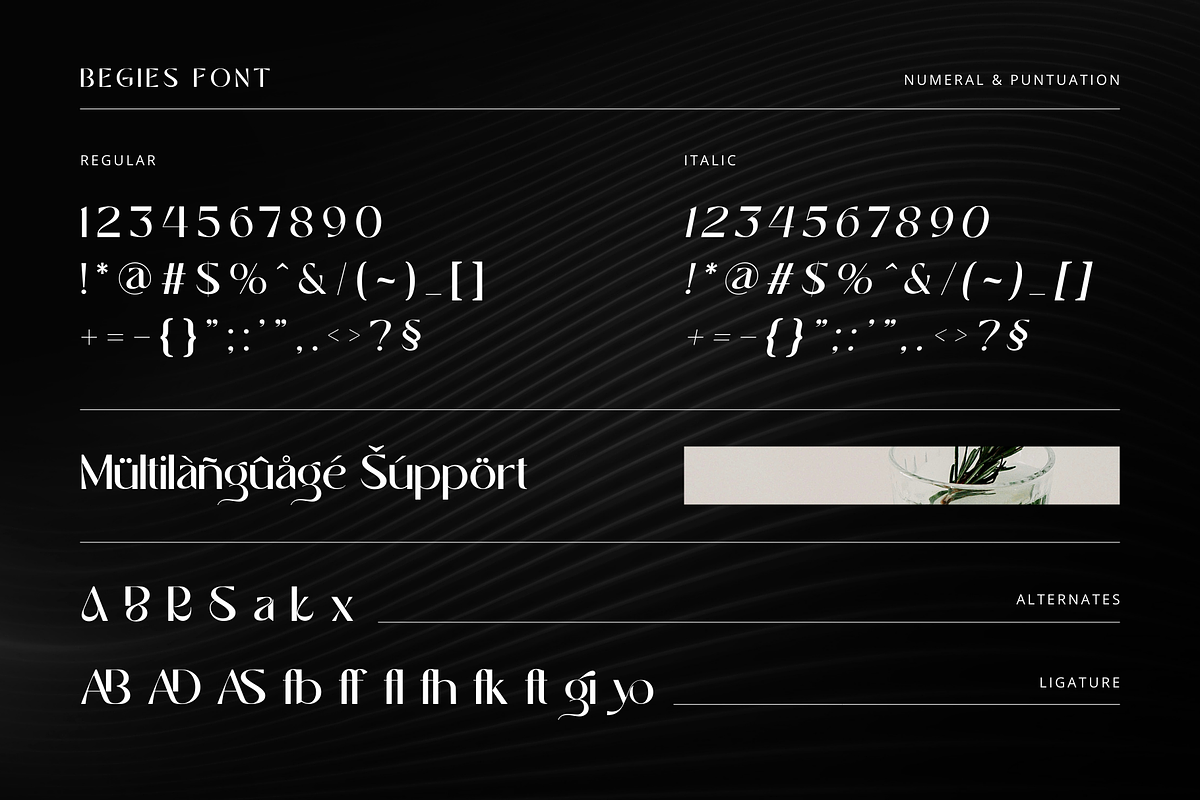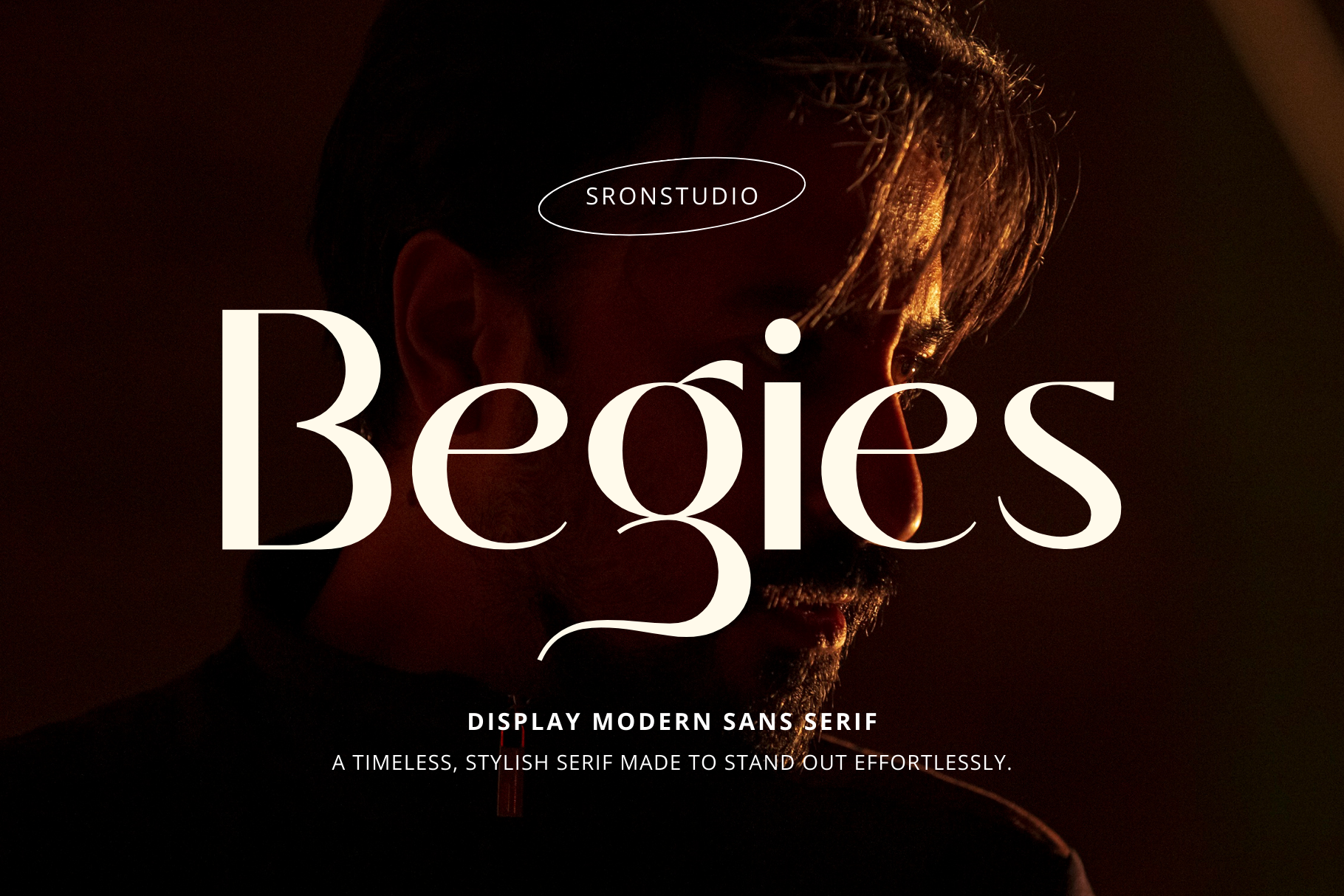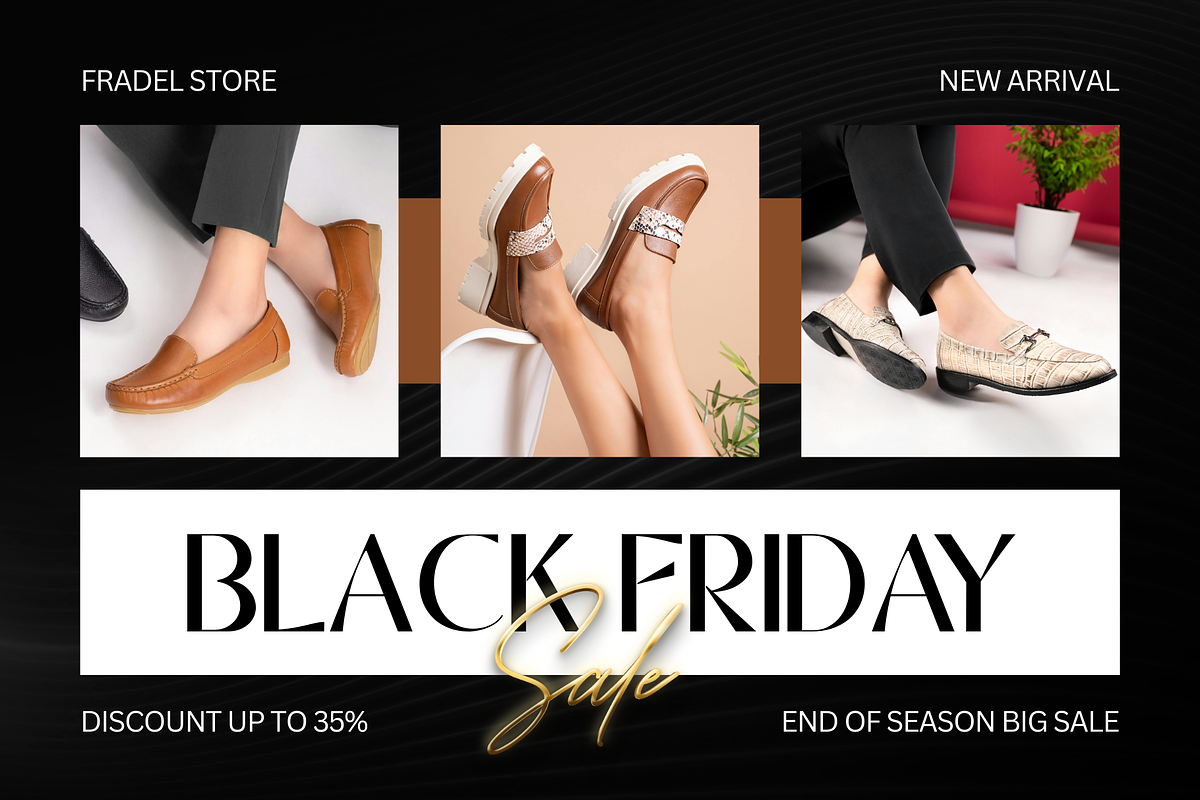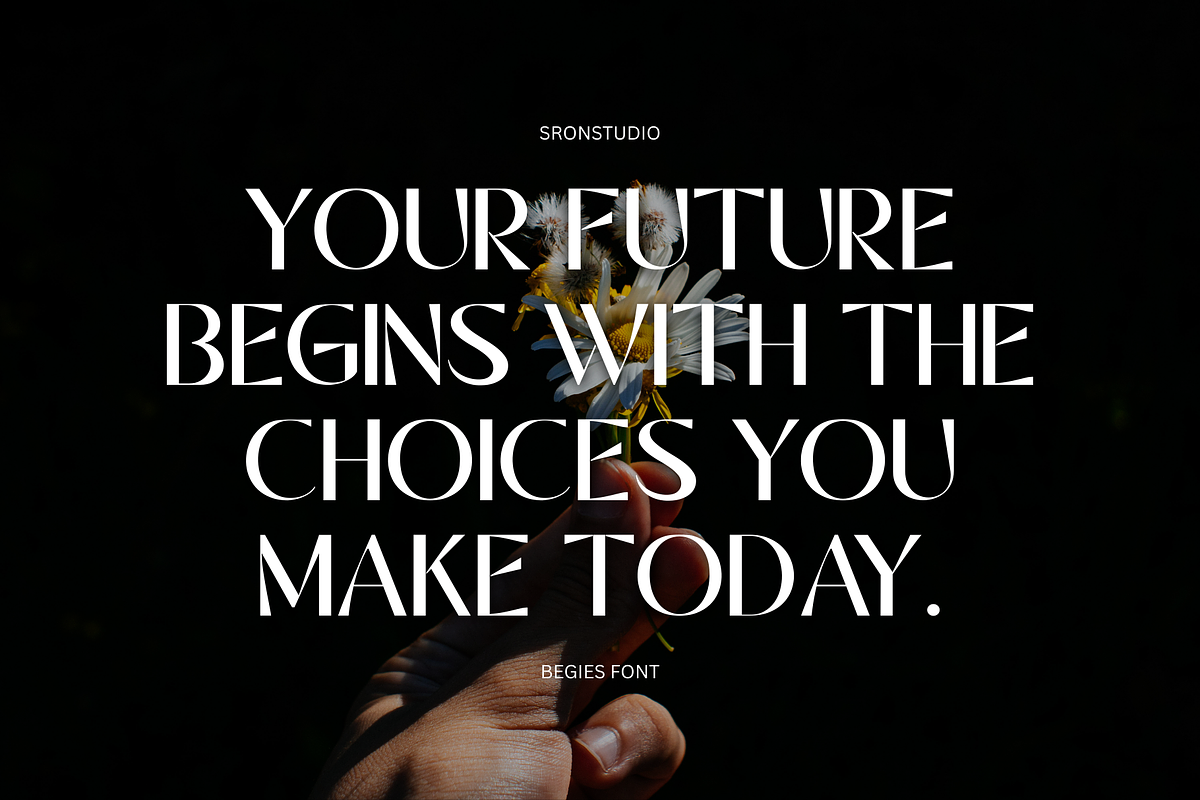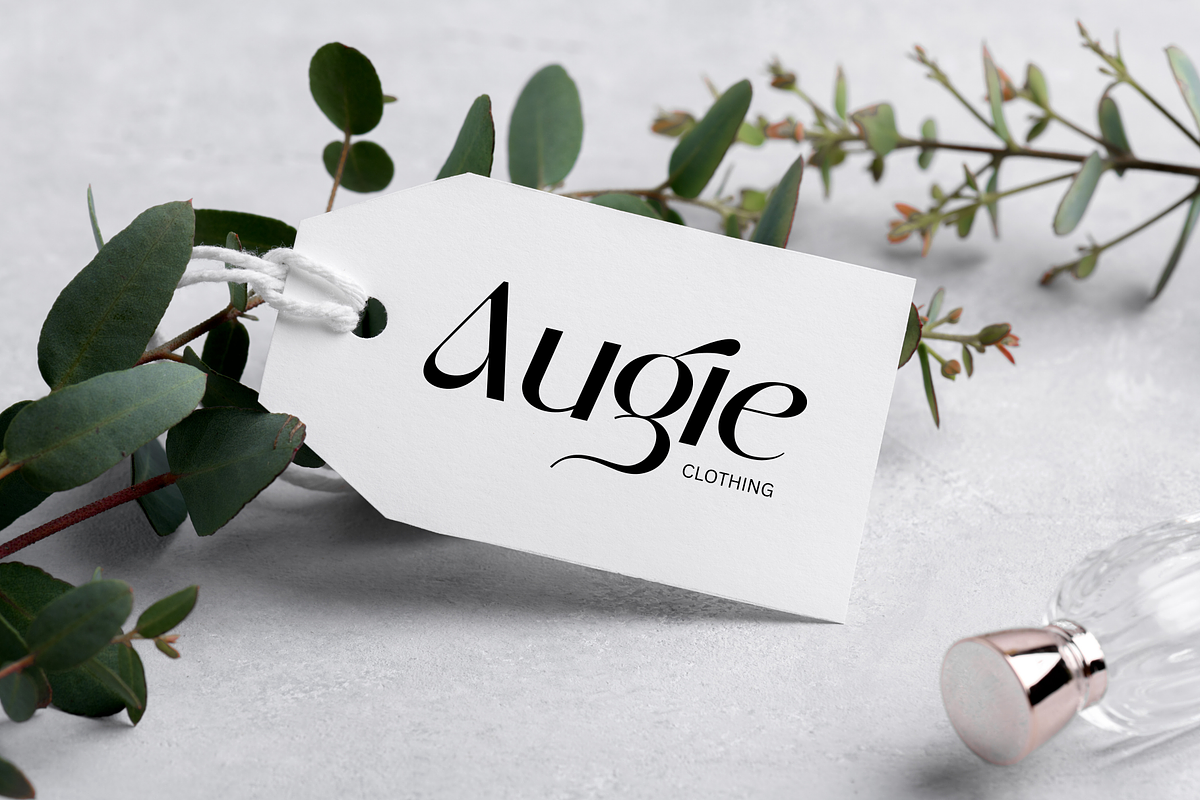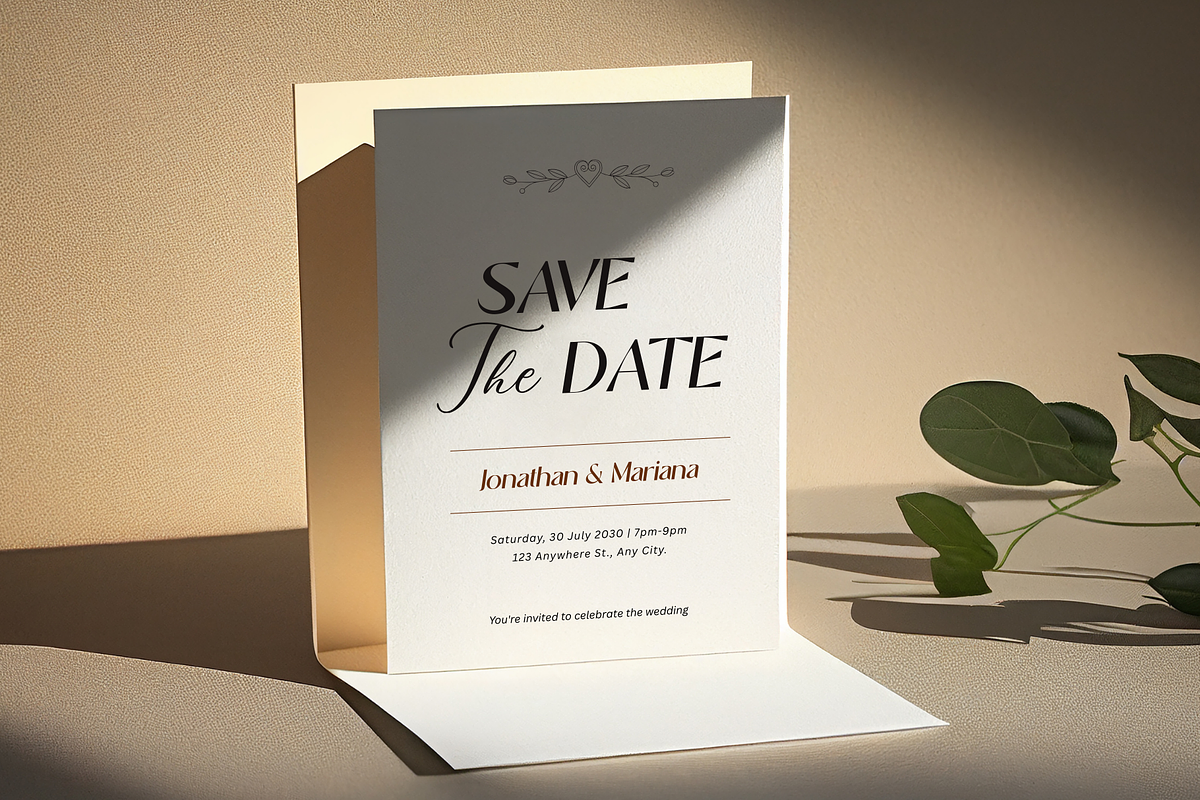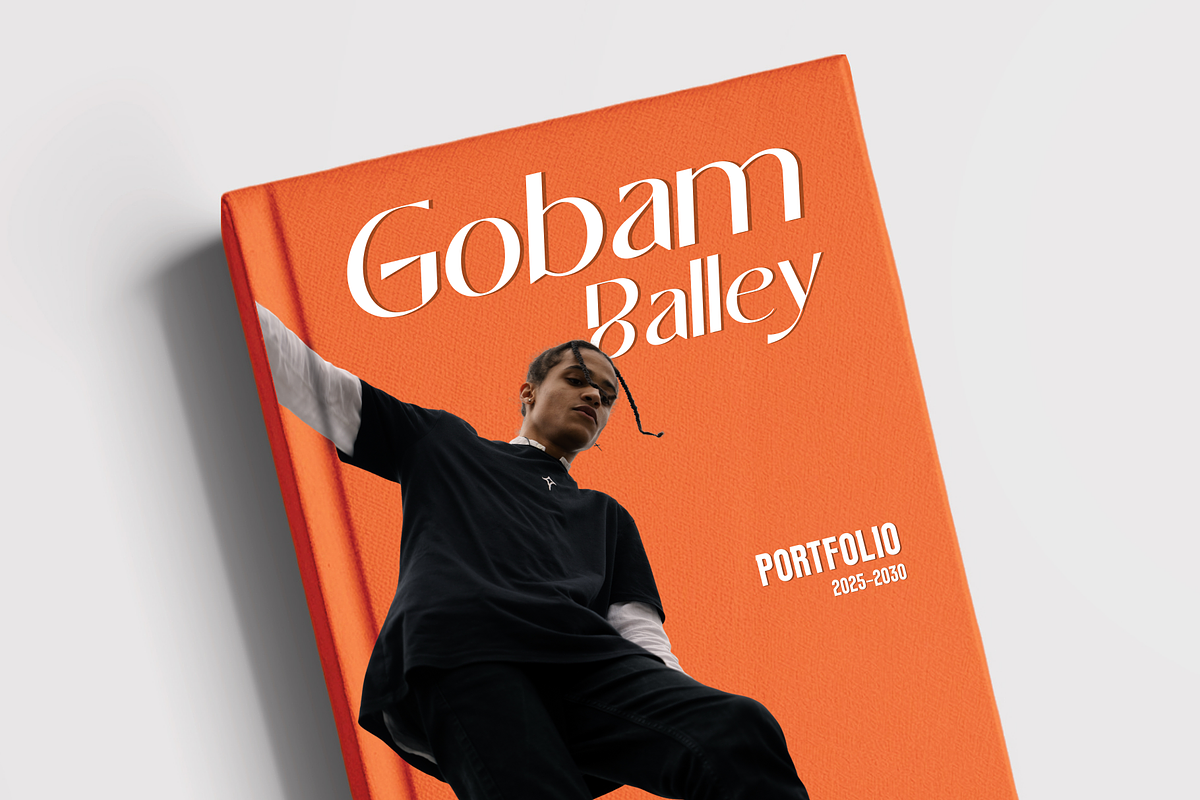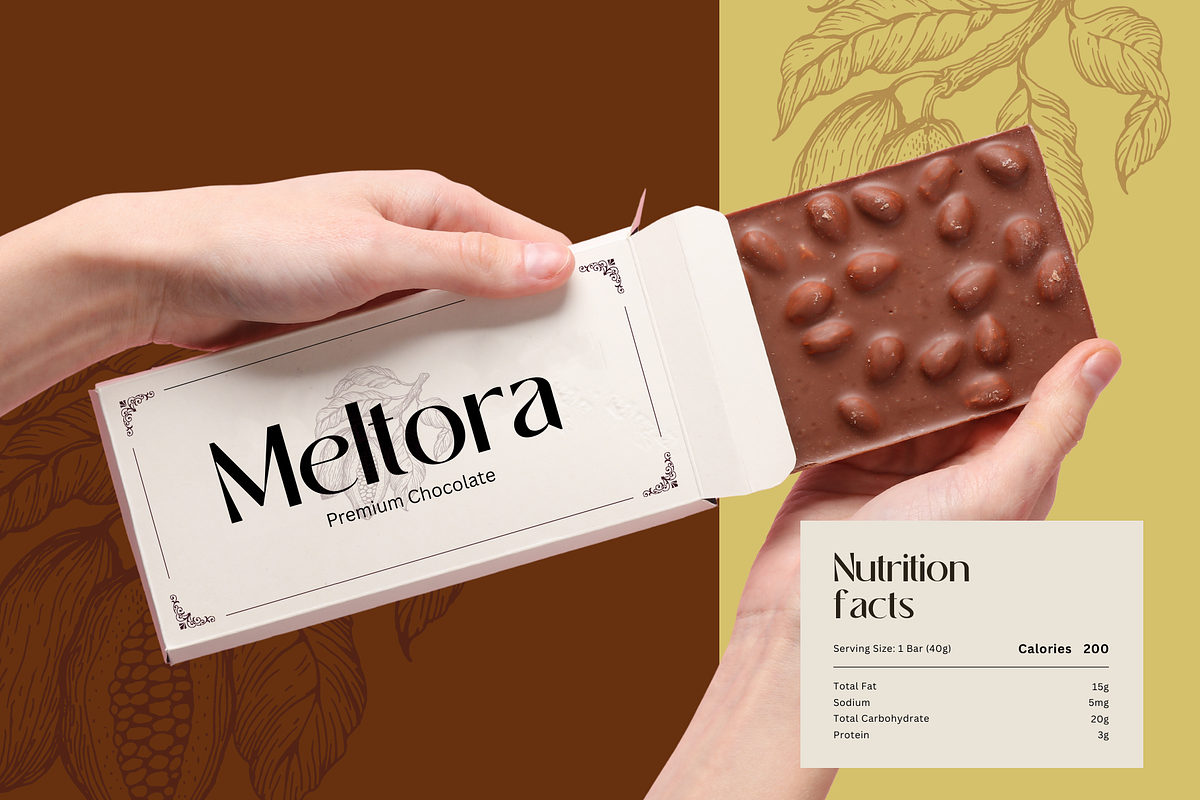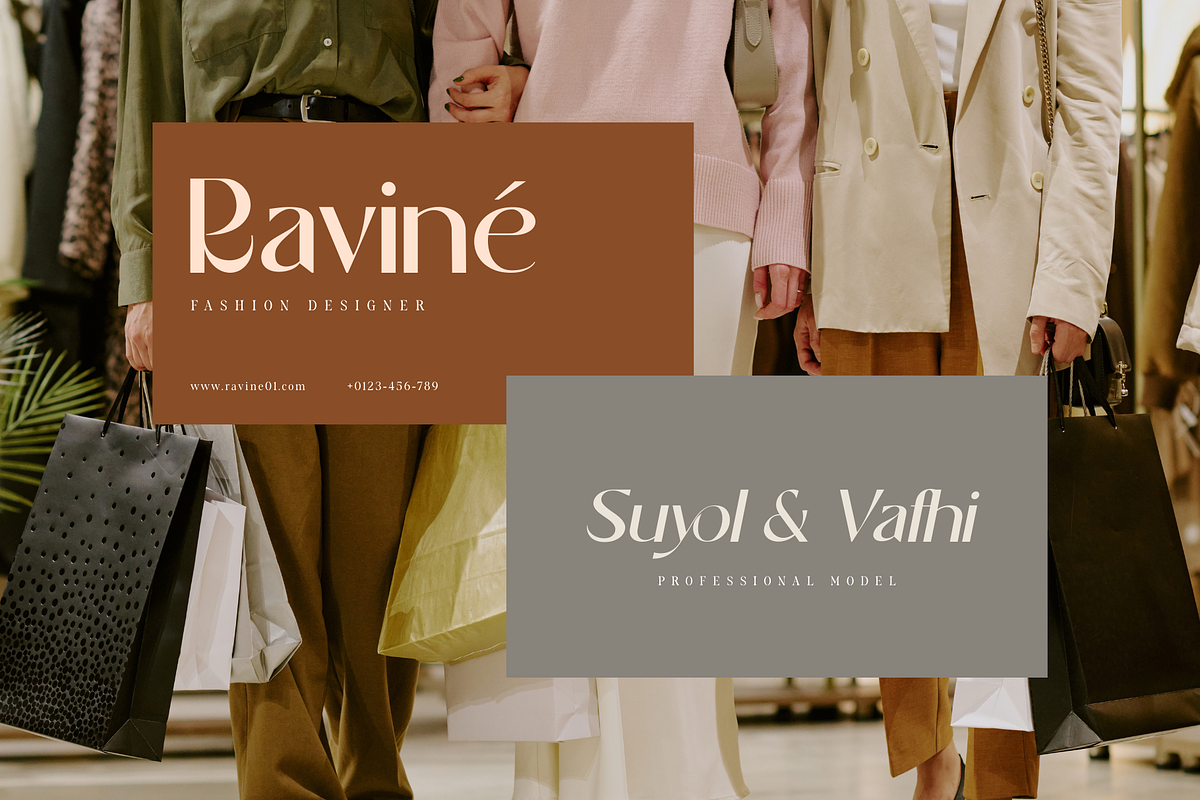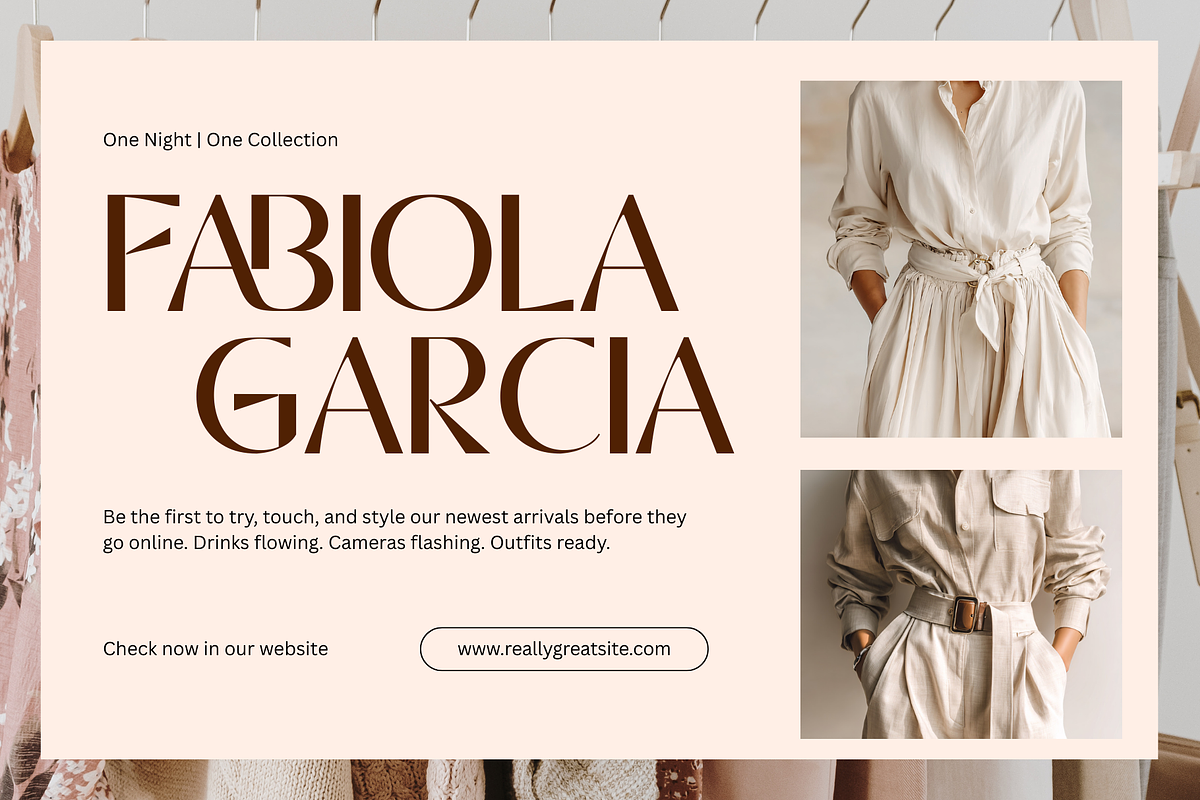
Begies - Modern Display Font
Begies is a modern display font designed to make every headline stand out with style and confidence. Featuring clean shapes, bold curves, and a contemporary aesthetic, this font is perfect for branding, posters, packaging, editorial layouts, and eye-catching logos. Begies blends modern simplicity with striking character, giving your designs a fresh and memorable look.
- Regular & Italic styles
- Alternates & ligatures
- Numerals & punctuation